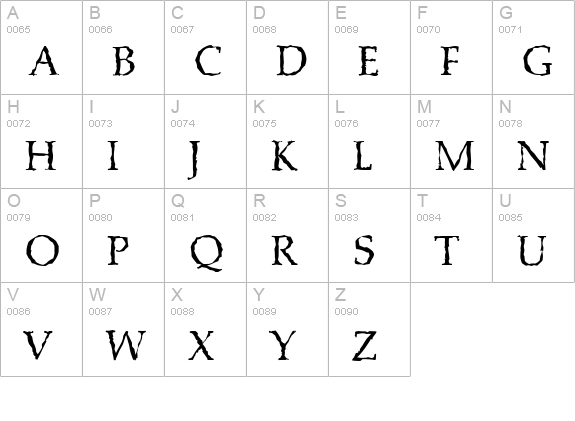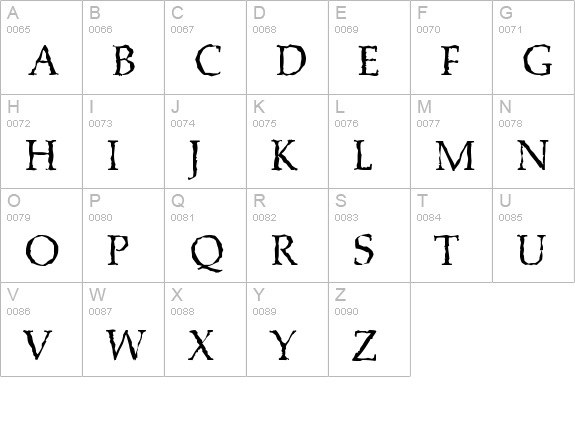
MarathonRandom-Regular is the standard, neutral variant in the MarathonRandom typeface family \xE2\x80\x94 well suited to general body text, paragraphs, and standard typographic work.
MarathonRandom-Regular font is a versatile and modern typeface that adds a touch of playfulness to any project. With its unique and random letterforms, this font is perfect for creating eye-catching designs that stand out. Whether you're designing posters, flyers, or social media graphics, MarathonRandom-Regular font is sure to make a statement. Best of all, MarathonRandom-Regular font is available for free download at FontsMarket.com. You can easily add this font to your collection and start using it in your projects right away. Don't miss out on the opportunity to enhance your designs with the distinctive charm of MarathonRandom-Regular font. Download it now and let your creativity shine!